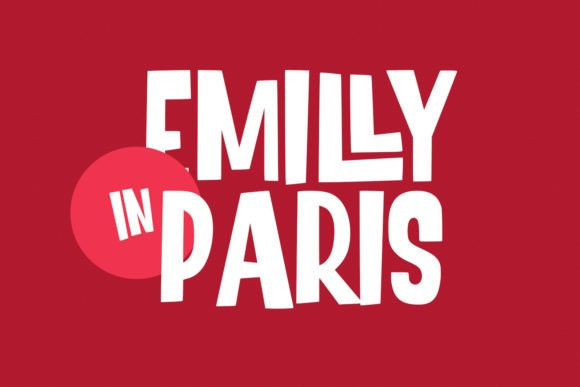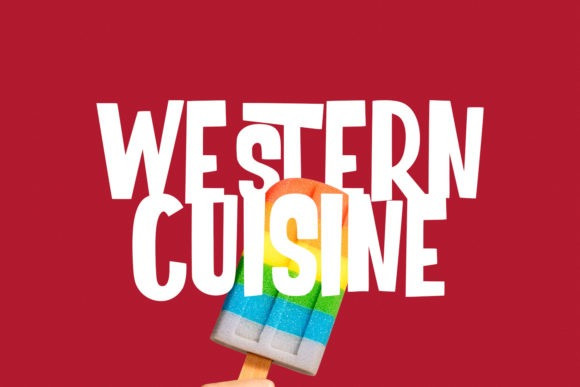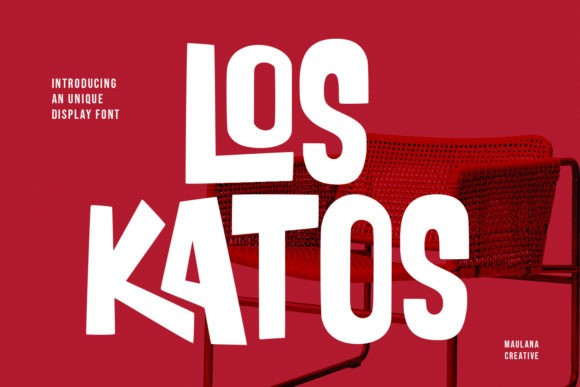
Los Katos Font
Los Katos Font is a cool and bold display font. Whatever the topic, this font will be a wonderful asset to your font library, as it has the potential to enhance any creation.